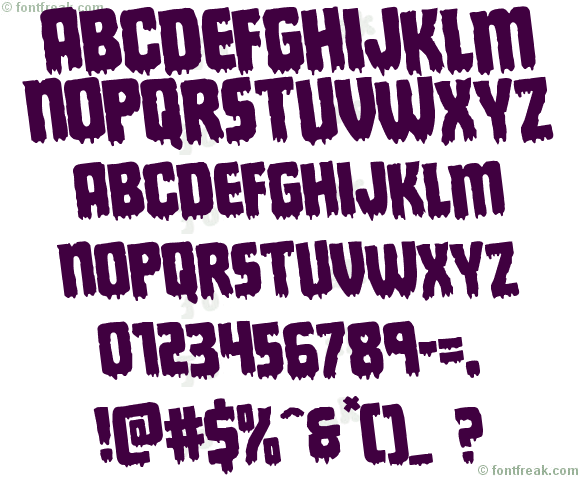
Deathblood Academy Italic
About Deathblood Academy Italic
Deathblood Academy Italic is a striking display font designed by Daniel Zadorozny, categorized under decorative typefaces. This font features an eye-catching italic style that combines boldness with a unique sense of adventure. The stroke weight is substantial, giving it a commanding presence, while the contrast between the thick and thin lines adds a dynamic quality. The letterforms exhibit a condensed structure, making it perfect for impactful headlines and attention-grabbing designs. The decorative elements, including sharp edges and a slightly distressed appearance, enhance its overall dramatic flair.
Ideal use cases for the Deathblood Academy Italic font include movie posters, where its bold and edgy style can evoke a sense of excitement and intrigue. It also works well for rock concert flyers, capturing the rebellious spirit of the music scene. Additionally, this font is perfect for Halloween-themed invitations or events, as its unique aesthetic lends itself to spooky and atmospheric designs. Small business owners seeking to create memorable branding materials, such as logos and promotional graphics, will find this font particularly useful. Graphic designers and content creators looking to make a statement with their typography will also appreciate its versatile nature.
The target audience for the Deathblood Academy Italic font includes graphic designers, small business owners, and content creators who wish to convey a bold and distinctive message through their work. This font stands out due to its unique blend of boldness and creativity, making it an excellent choice for projects that require a touch of flair. For those interested in this captivating typeface, a Deathblood Academy Italic font free download is available, allowing users to explore its potential in their creative endeavors.